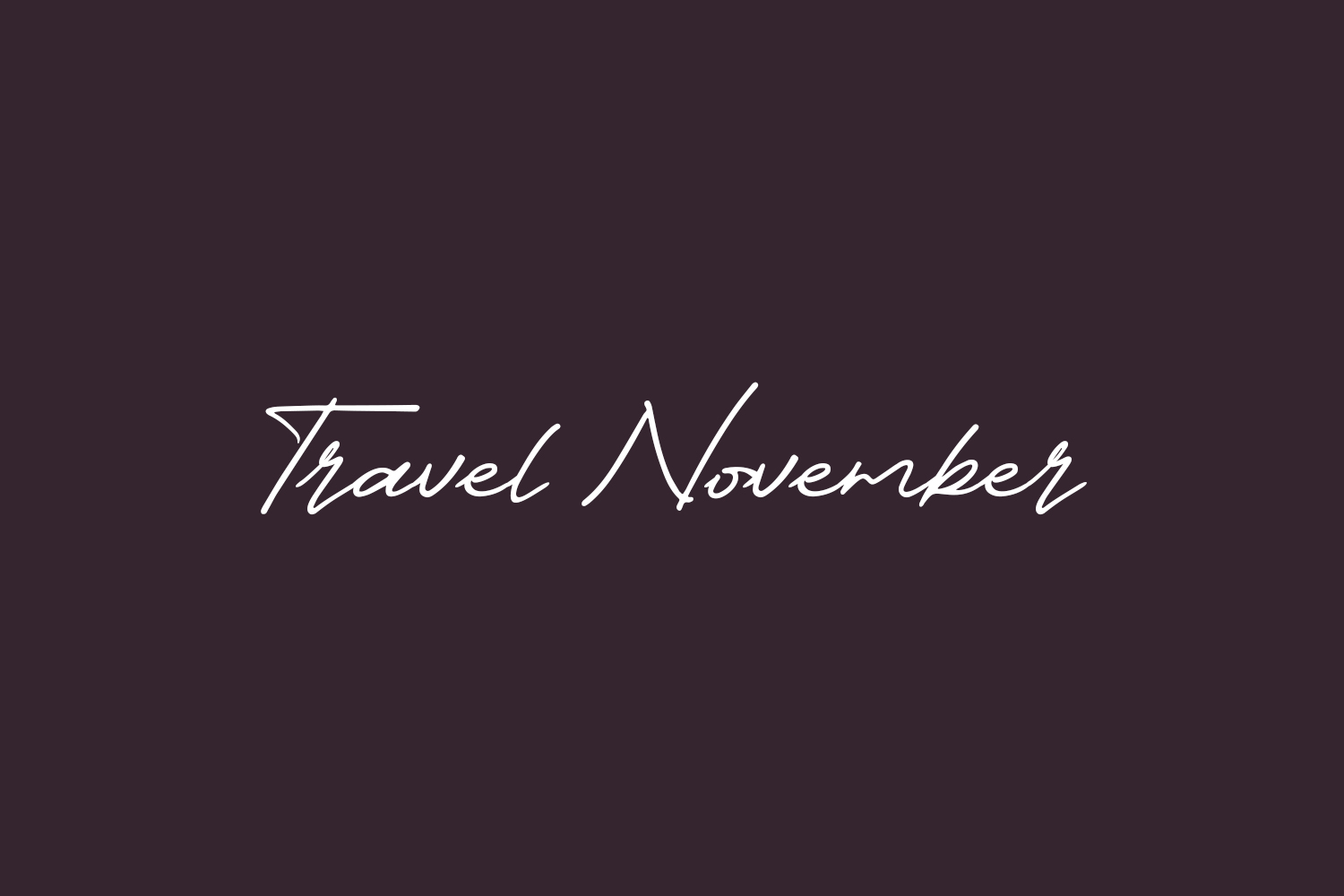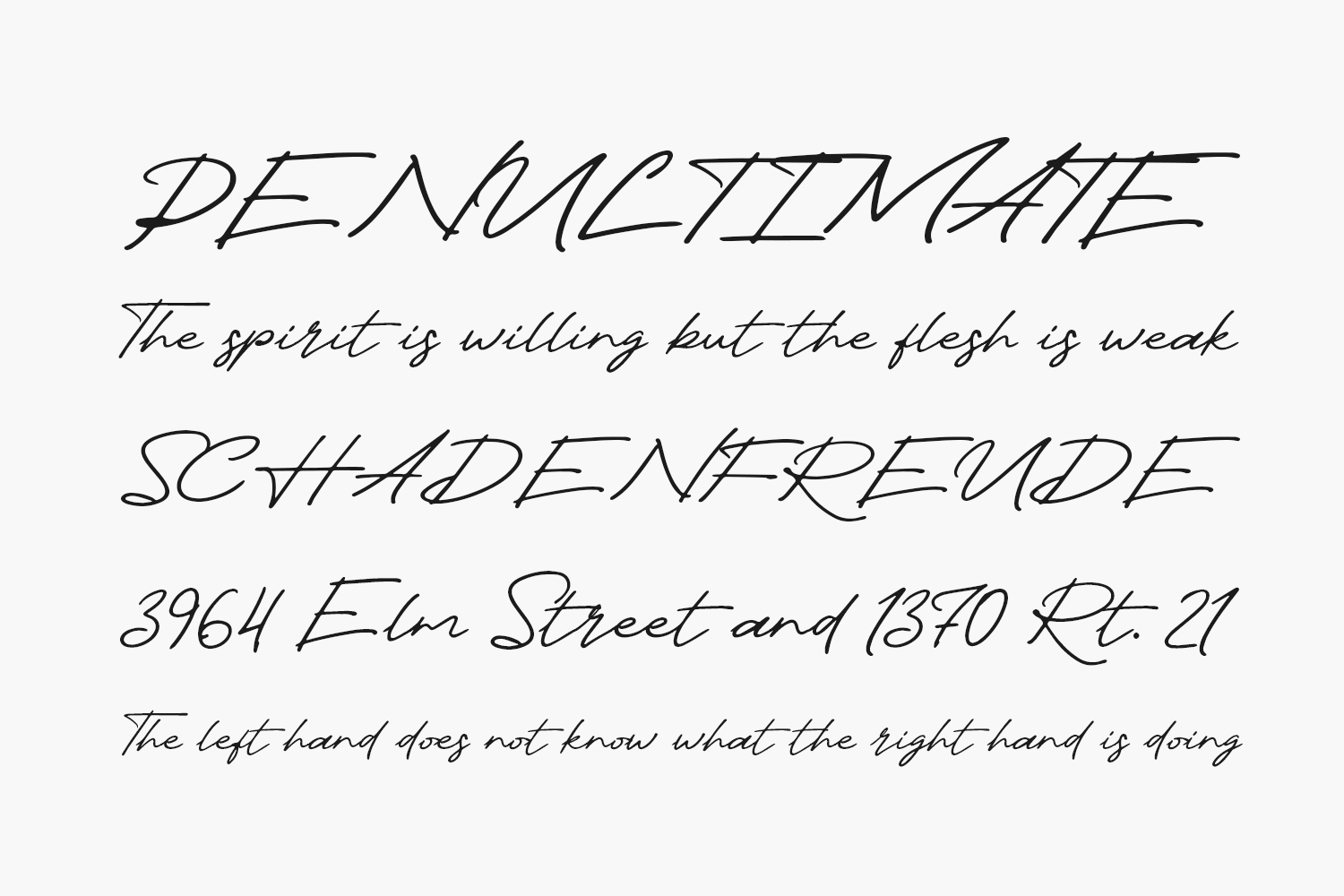
Travel November Free Font is a modern script calligraphy font perfect for posters, logos, magazines, book covers, banners, and many more! Get this quirky display font, and use it to create lovely designs. was designed by Khurasan and is free for personal or commercial use.